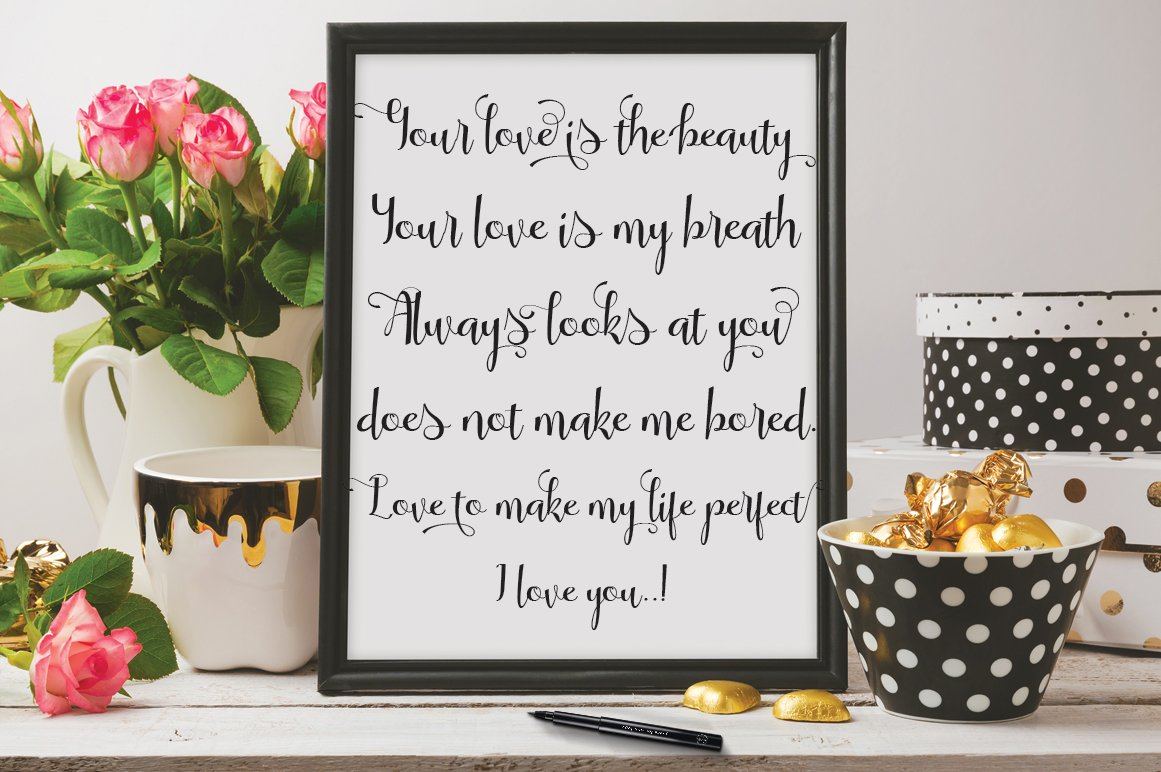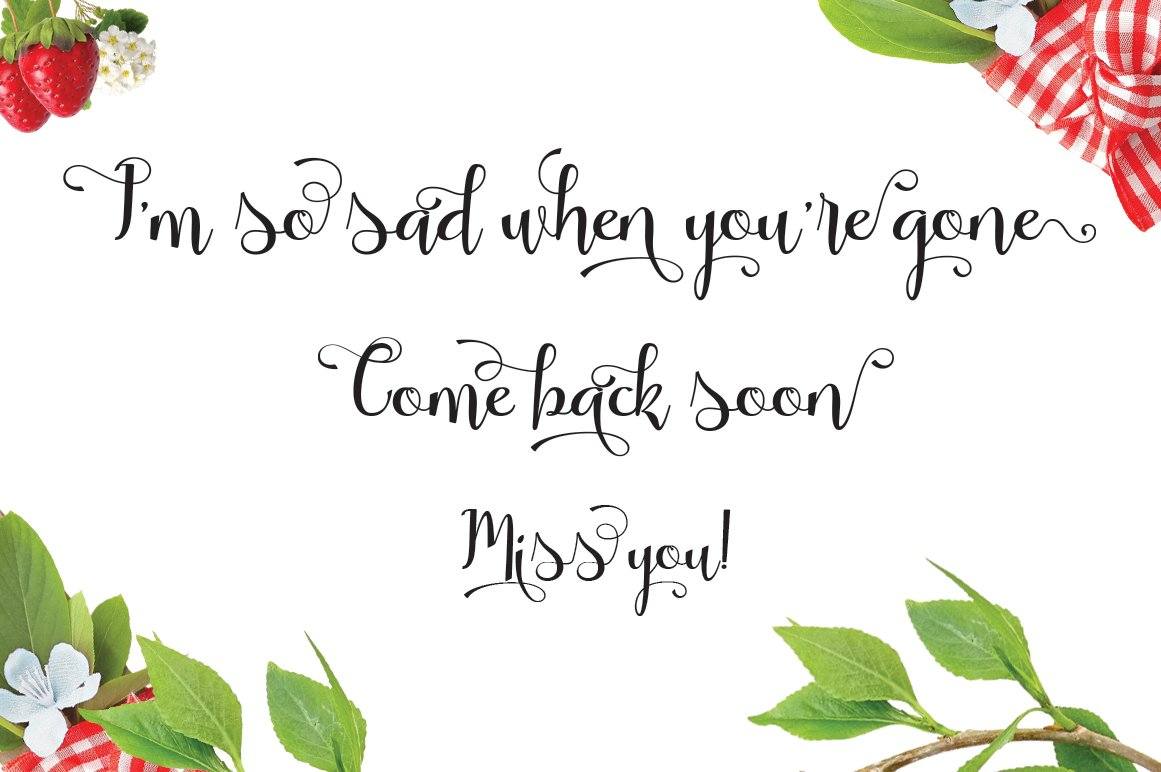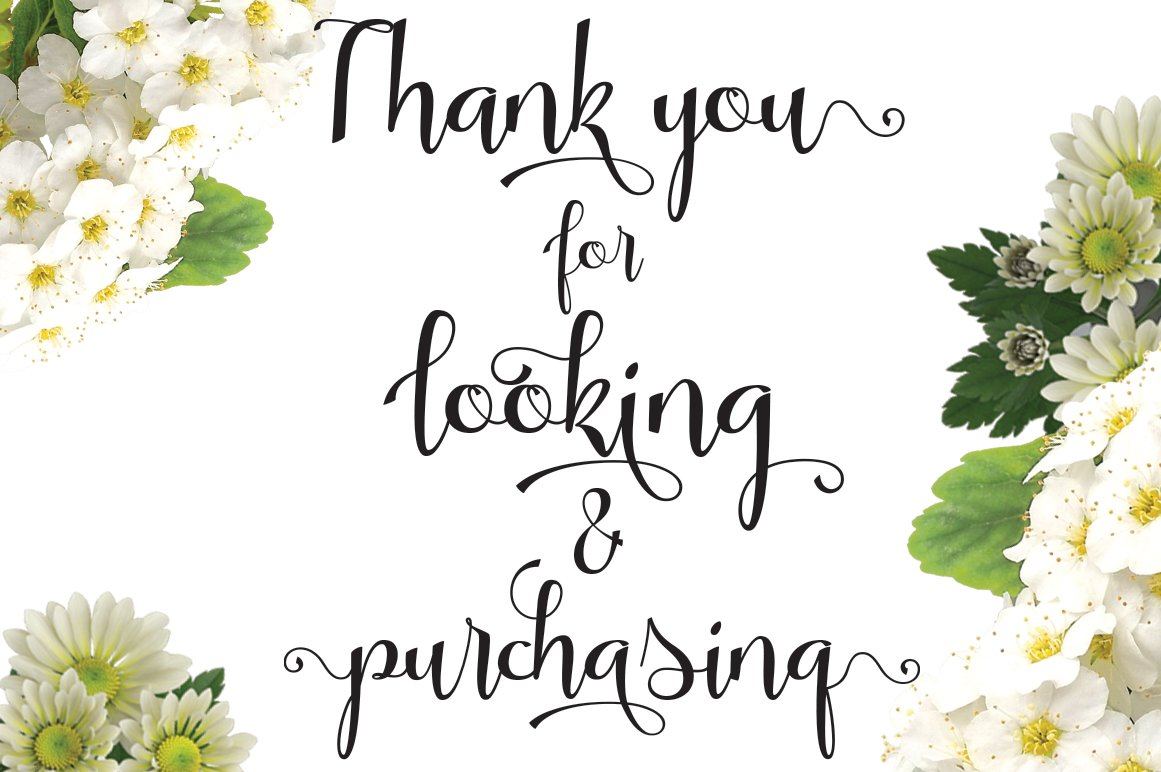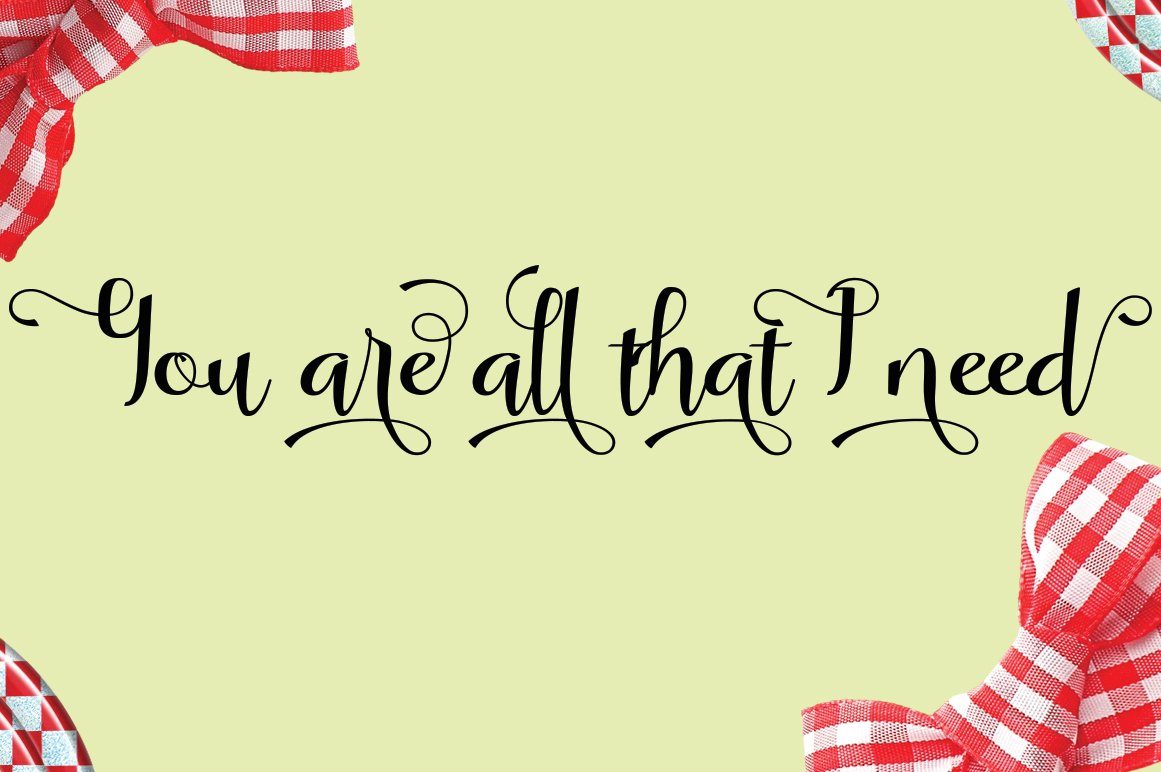
About Ashaki
Ashaki Modern Calligraphy. This font was designed by handwriting, and it has a modern and unique forms of calligraphy, the writing style is very natural. The Features of this fonts is; * Standart ligatures * Stylistic Alternates * Contextual Alternates * Stylistic sets File font Ashaki Include; * Ashaki OTF * Ashaki TTF * Ashaki PUA Unicode (Private Use Areas) Programs that support in this font is a Photo Shop, Adobe Illustrator, Adobe Indesign, Corel Draw and Microsoft Office. Can be used for various purposes.such as headings, logos, wedding invitation, t-shirt, letterhead, signage, lable, news, posters, badges etc. To enable the OpenType Stylistic alternates, you need a program that supports OpenType features such as Adobe Illustrator CS, Adobe Indesign & CorelDraw X6-X7. Ashaki Modern Calligraphy. This font was designed by handwriting, and it has a modern and unique forms of calligraphy, the writing style is very natural. The Features of this fonts is; * Standart ligatures * Stylistic Alternates * Contextual Alternates * Stylistic sets File font Ashaki Include; * Ashaki OTF * Ashaki TTF * Ashaki PUA Unicode (Private Use Areas) Programs that support in this font is a Photo Shop, Adobe Illustrator, Adobe Indesign, Corel Draw and Microsoft Office. Can be used for various purposes.such as headings, logos, wedding invitation, t-shirt, letterhead, signage, lable, news, posters, badges etc. To enable the OpenType Stylistic alternates, you need a program that supports OpenType features such as Adobe Illustrator CS, Adobe Indesign & CorelDraw X6-X7. Ashaki Modern Calligraphy. This font was designed by handwriting, and it has a modern and unique forms of calligraphy, the writing style is very natural. The Features of this fonts is; * Standart ligatures * Stylistic Alternates * Contextual Alternates * Stylistic sets File font Ashaki Include; * Ashaki OTF * Ashaki TTF * Ashaki PUA Unicode (Private Use Areas) Programs that support in this font is a Photo Shop, Adobe Illustrator, Adobe Indesign, Corel Draw and Microsoft Office. Can be used for various purposes.such as headings, logos, wedding invitation, t-shirt, letterhead, signage, lable, news, posters, badges etc.